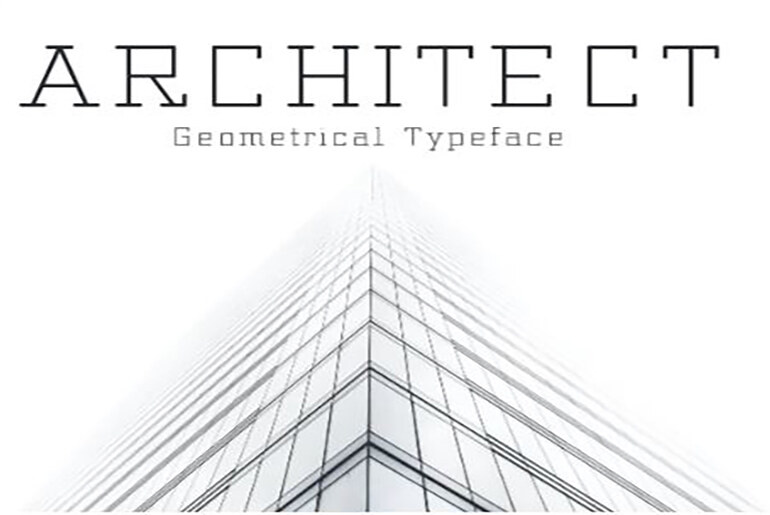
Architect Font – Fonts for Architects
In the realm of graphic design and architecture, the choice of fonts plays a pivotal role in conveying the essence of a project. Among the myriad options available, geometric typefaces have emerged as a popular choice for architects seeking a perfect blend of aesthetics and functionality in their presentations. In this comprehensive exploration, we delve into the intricacies of architect fonts, particularly focusing on the geometric typeface genre, and unravel how architects can leverage these fonts to enhance their portfolios.
Understanding Geometric Typefaces
Geometric typefaces, characterized by clean lines, symmetry, and mathematical precision, have gained prominence for their modern and minimalist appeal. These fonts draw inspiration from basic geometric shapes, such as circles, squares, and triangles, resulting in a harmonious and balanced visual representation. Architects, known for their attention to detail and precision, find these fonts to be a natural extension of their design ethos.
The Evolution of Architect Fonts
Historically, architectural presentations relied on conventional fonts that often fell short of capturing the essence of contemporary design. The evolution of architect fonts has been marked by a shift towards fonts that reflect the clean lines and structural integrity synonymous with modern architecture. Geometric typefaces, with their nod to mathematical principles, perfectly embody the essence of the architectural discipline.
Incorporating Geometric Fonts in Architectural Portfolios
Reflecting Modernity in Design
Architects are increasingly embracing geometric typefaces to infuse a sense of modernity into their portfolio presentations. Fonts like Futura, Avenir, and Gotham, known for their geometric qualities, contribute to a sleek and contemporary aesthetic. This choice not only aligns with current design trends but also communicates a forward-thinking approach to potential clients and collaborators.
Enhancing Readability and Clarity
In architectural portfolios, where conveying complex ideas is paramount, the readability of text is crucial. Geometric fonts, with their clean and uniform shapes, enhance the clarity of written content. This is especially beneficial when presenting technical information, project descriptions, or annotations, ensuring that the audience can easily comprehend the details without visual clutter.
Creating Visual Consistency
Consistency in visual elements is a key principle in graphic design, and architects are no exception to this rule. Geometric typefaces offer a consistent visual language that aligns with the precision and order inherent in architectural design. Using these fonts across various sections of a portfolio creates a cohesive and professional presentation, reinforcing the architect’s commitment to meticulous design.
Examples of Geometric Fonts in Architectural Portfolios
Futura: The Timeless Classic
Futura, a geometric sans-serif typeface designed by Paul Renner in the 1920s, remains a timeless classic in architectural presentations. Its clean lines and balanced proportions make it versatile for a range of applications, from project titles to body text. Architects appreciate Futura for its ability to exude both sophistication and simplicity.
Avenir: Balancing Elegance and Readability
Avenir, designed by Adrian Frutiger, strikes a perfect balance between elegance and readability. Its geometric foundation, coupled with subtle humanist elements, makes it an ideal choice for architectural portfolios. Avenir’s versatility allows architects to convey a sense of professionalism while ensuring that the content remains accessible to a diverse audience.
Gotham: Bold and Impactful
Gotham, known for its bold and impactful presence, has become a favorite among architects aiming to make a strong visual statement. Its geometric sans-serif design imparts a sense of authority and modernity, making it suitable for headings, captions, and other key elements within a portfolio. Gotham’s boldness captures attention while maintaining a refined aesthetic.
Choosing the Right Geometric Typeface for Your Portfolio
Selecting the ideal geometric typeface for an architectural portfolio requires careful consideration of various factors, including the nature of the projects, the target audience, and the overall design theme. Architects are encouraged to explore a variety of geometric fonts and assess how each aligns with their unique design philosophy.
Conclusion: Elevating Architectural Presentations with Geometric Fonts
In conclusion, the use of geometric typefaces in architectural portfolios is not merely a stylistic choice but a strategic decision to convey professionalism, modernity, and clarity. As architects continue to push the boundaries of design innovation, the role of fonts in articulating their vision becomes increasingly crucial.
By incorporating geometric typefaces like Futura, Avenir, and Gotham, architects can establish a visual identity that resonates with contemporary design principles. The clean lines, balanced proportions, and mathematical precision of these fonts align seamlessly with the architectural discipline, elevating the impact of portfolio presentations.